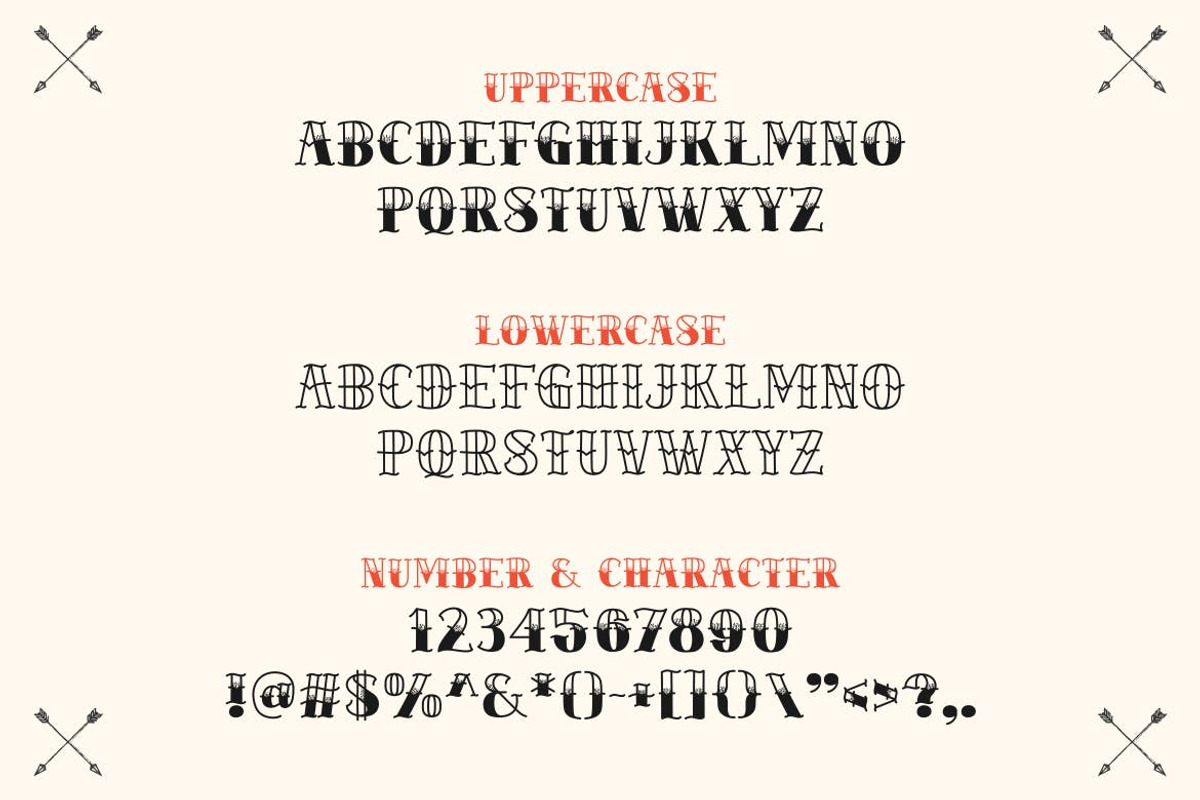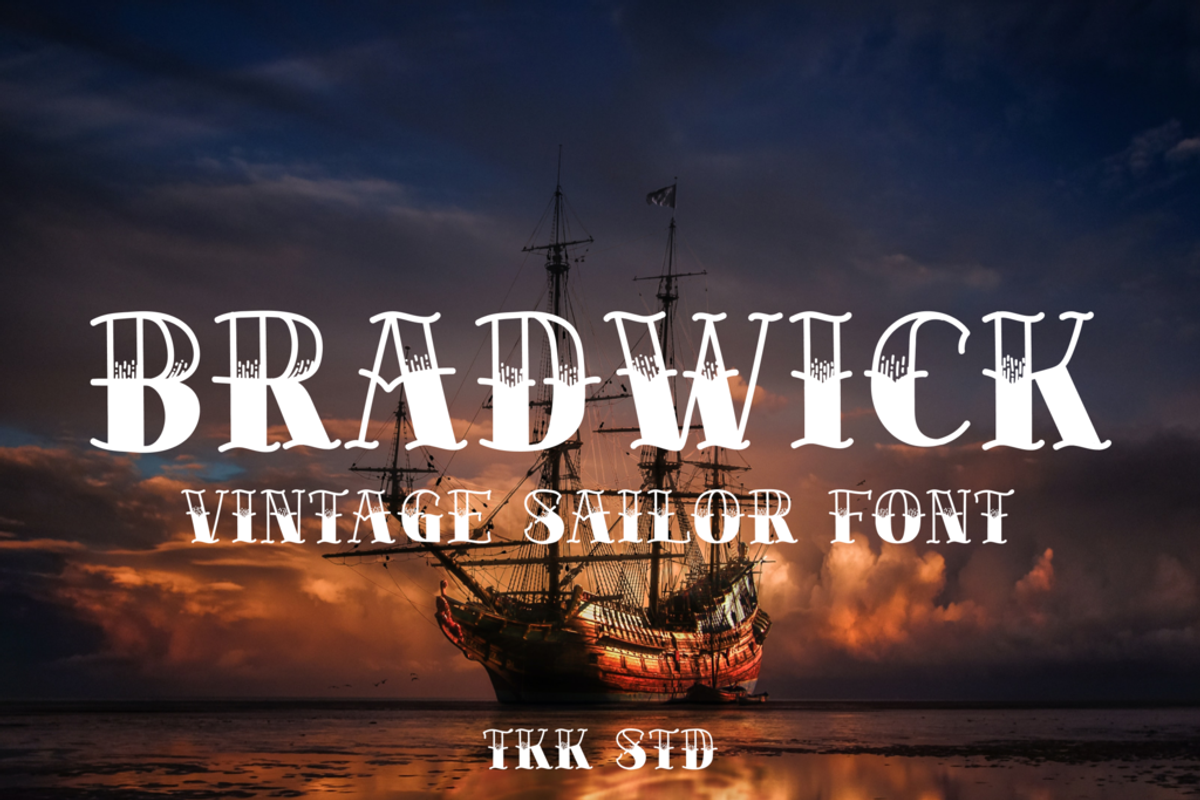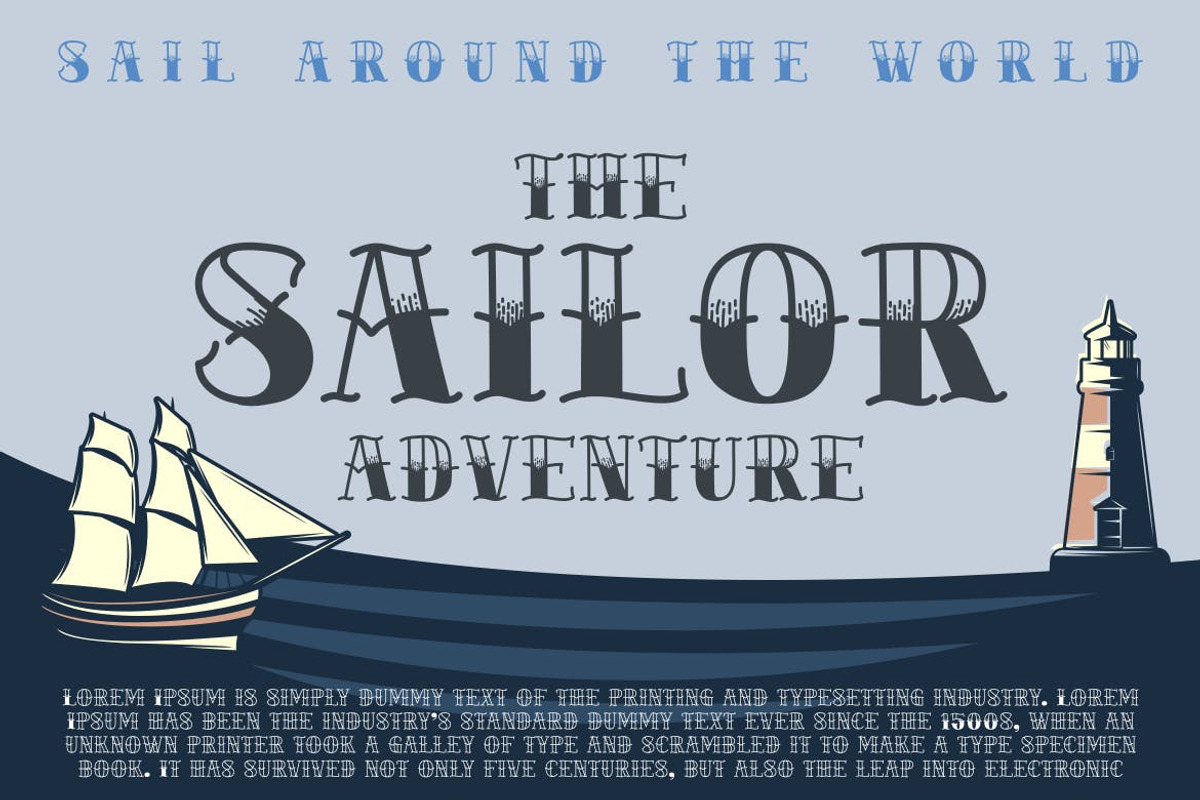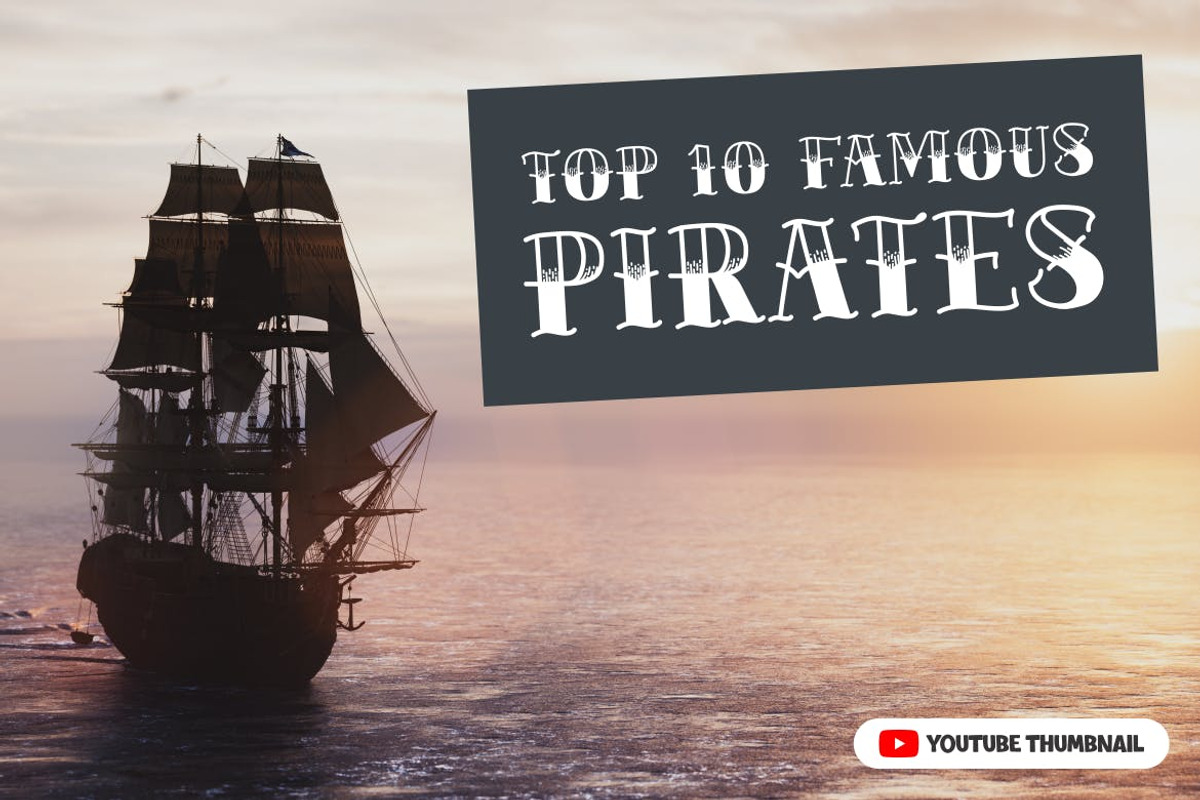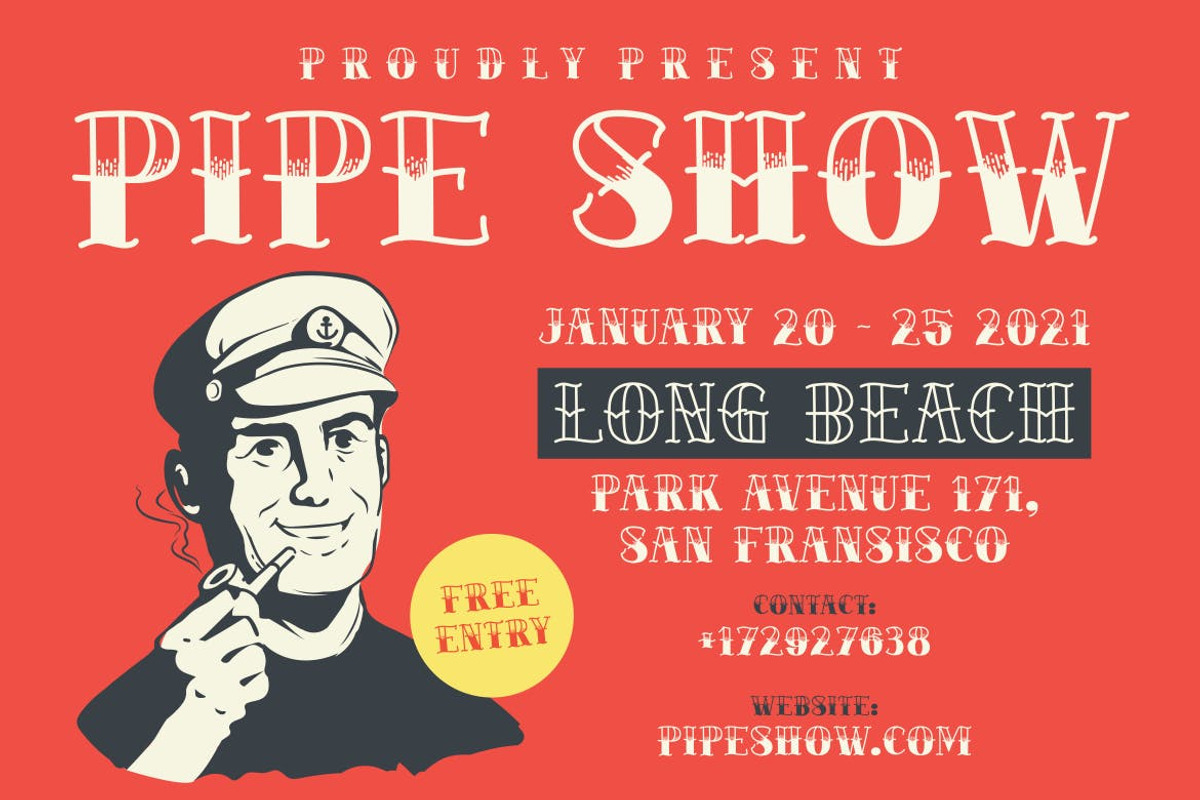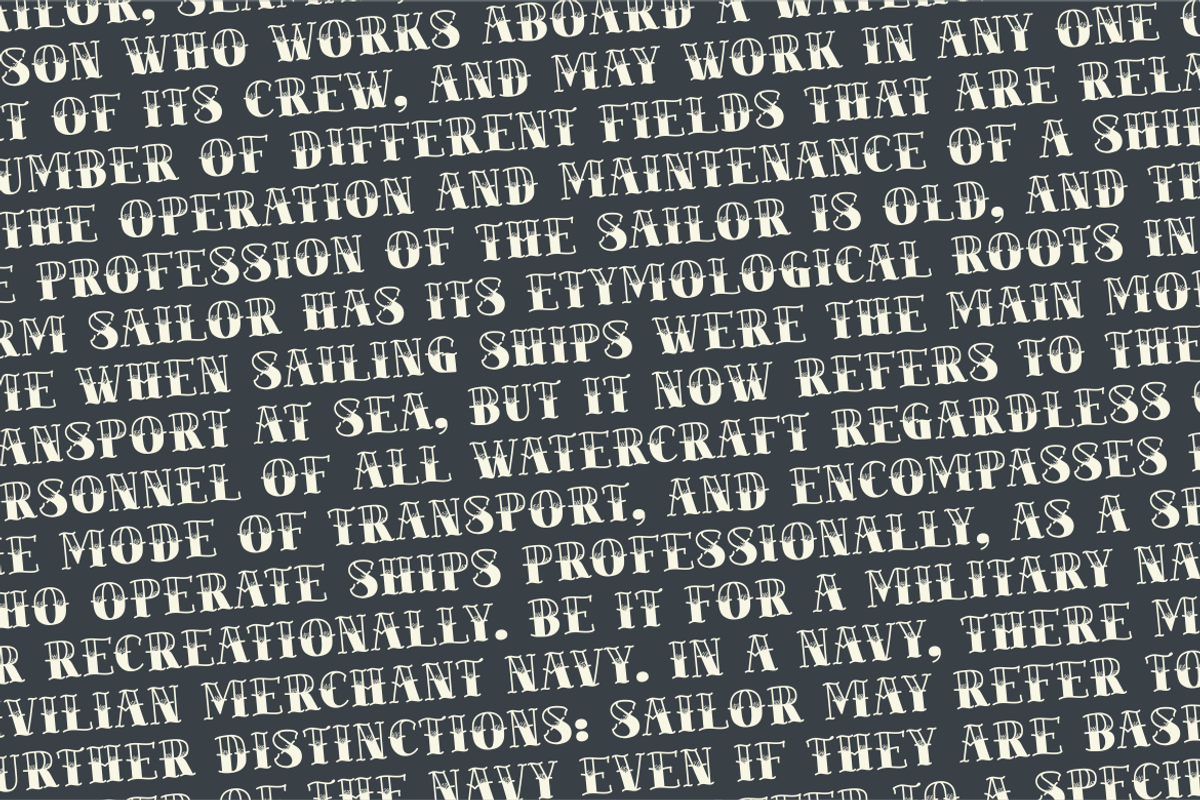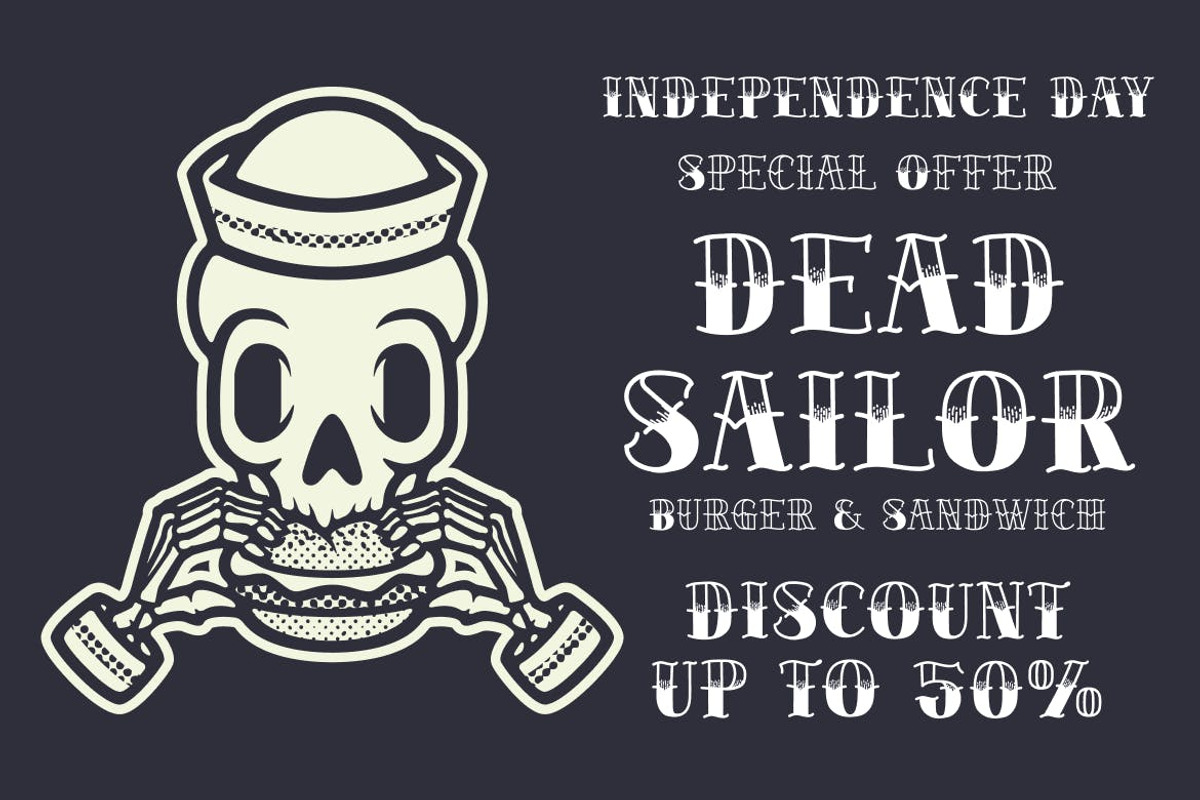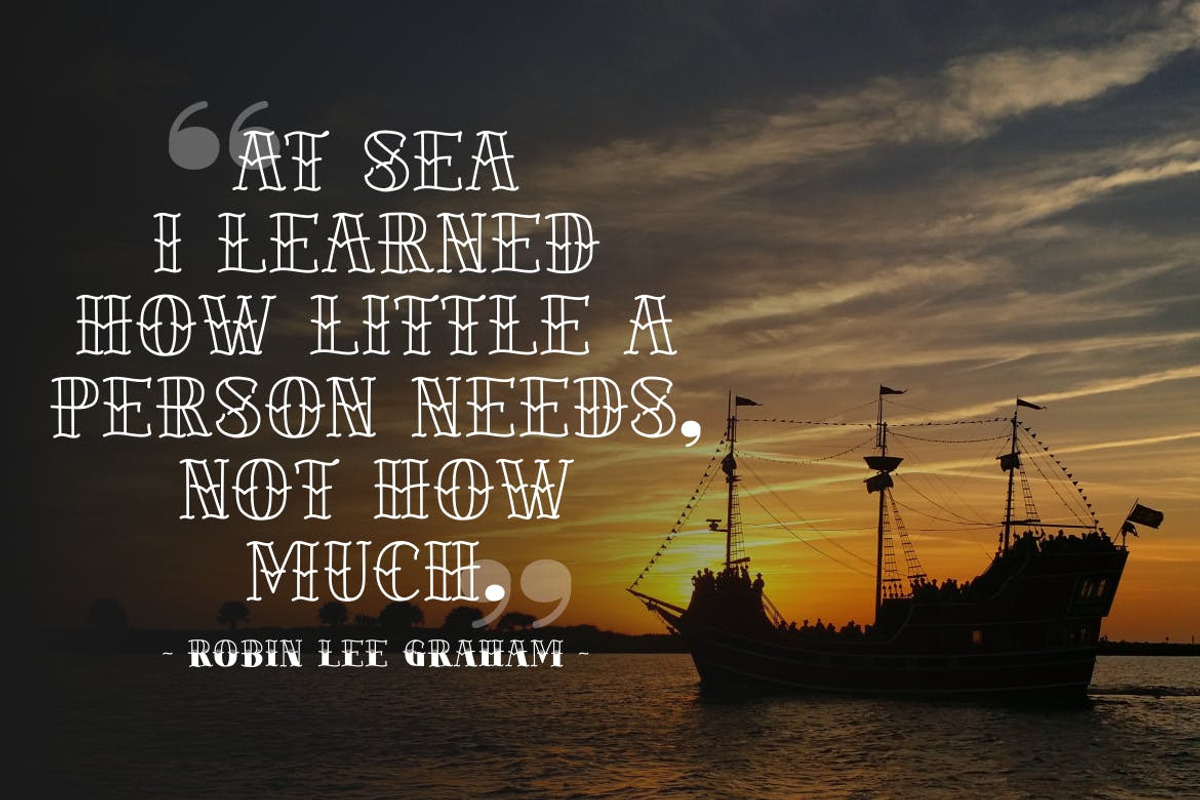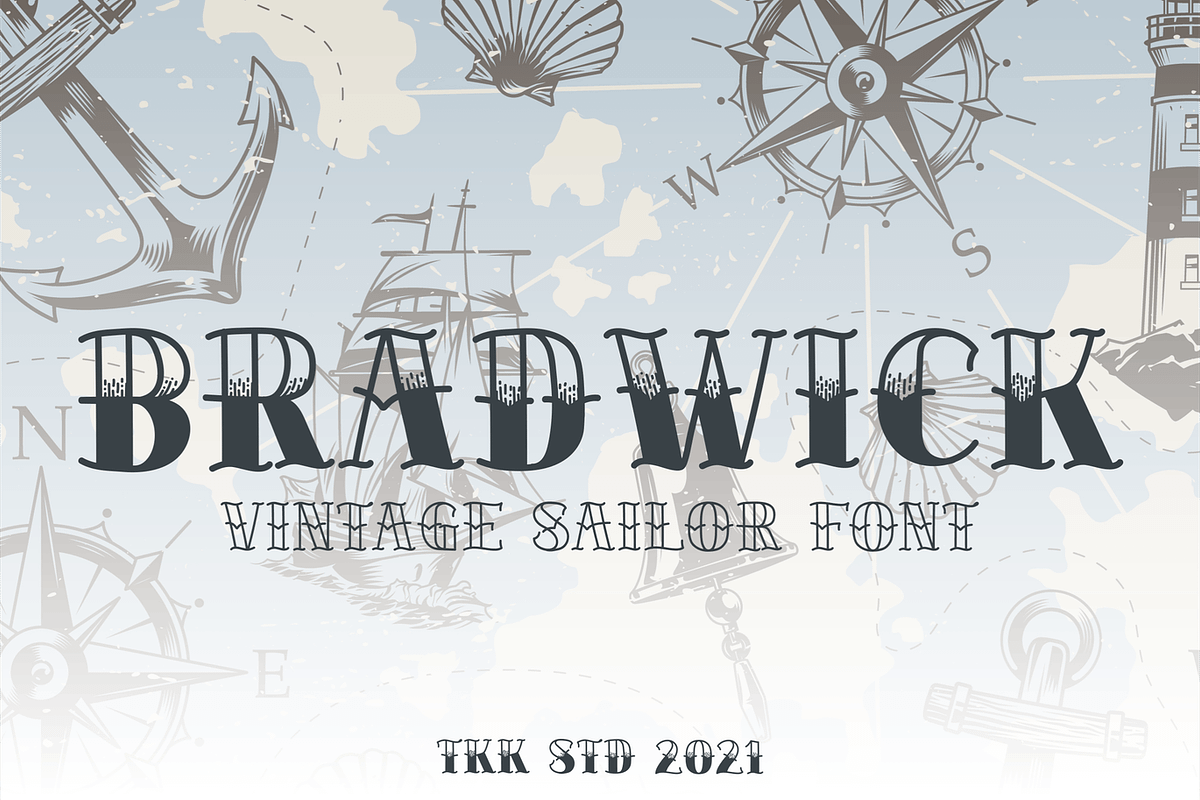
BRADWICK - Vintage Font
BRADWICK vintage font having vintage-looking, and what tattoo artist use to make a classic retro looking inking, Bradwick is top-notch for making one.
Suit perfectly for Sailor tattoo theme graphics, poster, movie title, fast food menu, magazine, youtube covers, youtube thumbnails, social media page covers and so on…